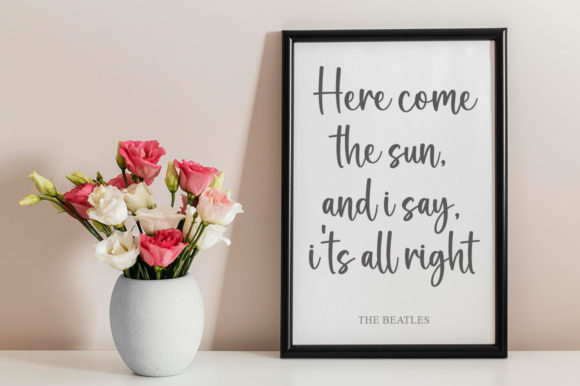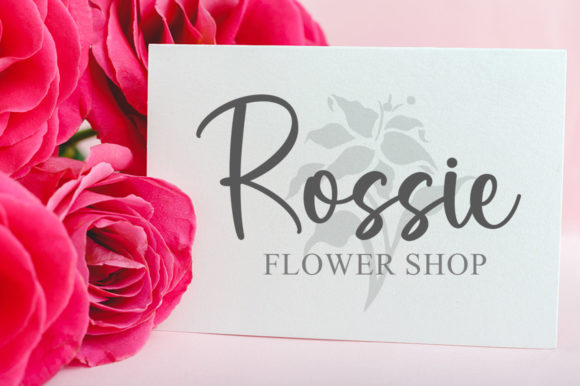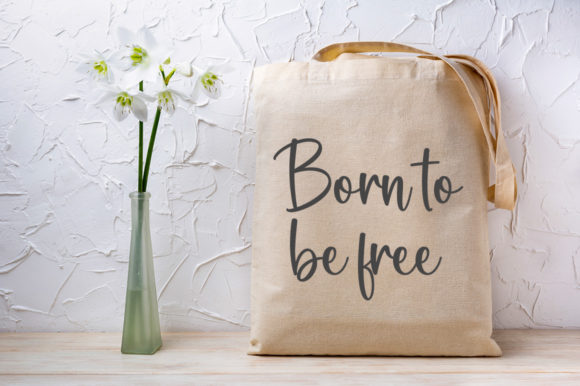
Plant Mama is a delicate and refined script font that emanates sophistication and elegance. Its stylish alternates and ligatures make this font the perfect match for any project.